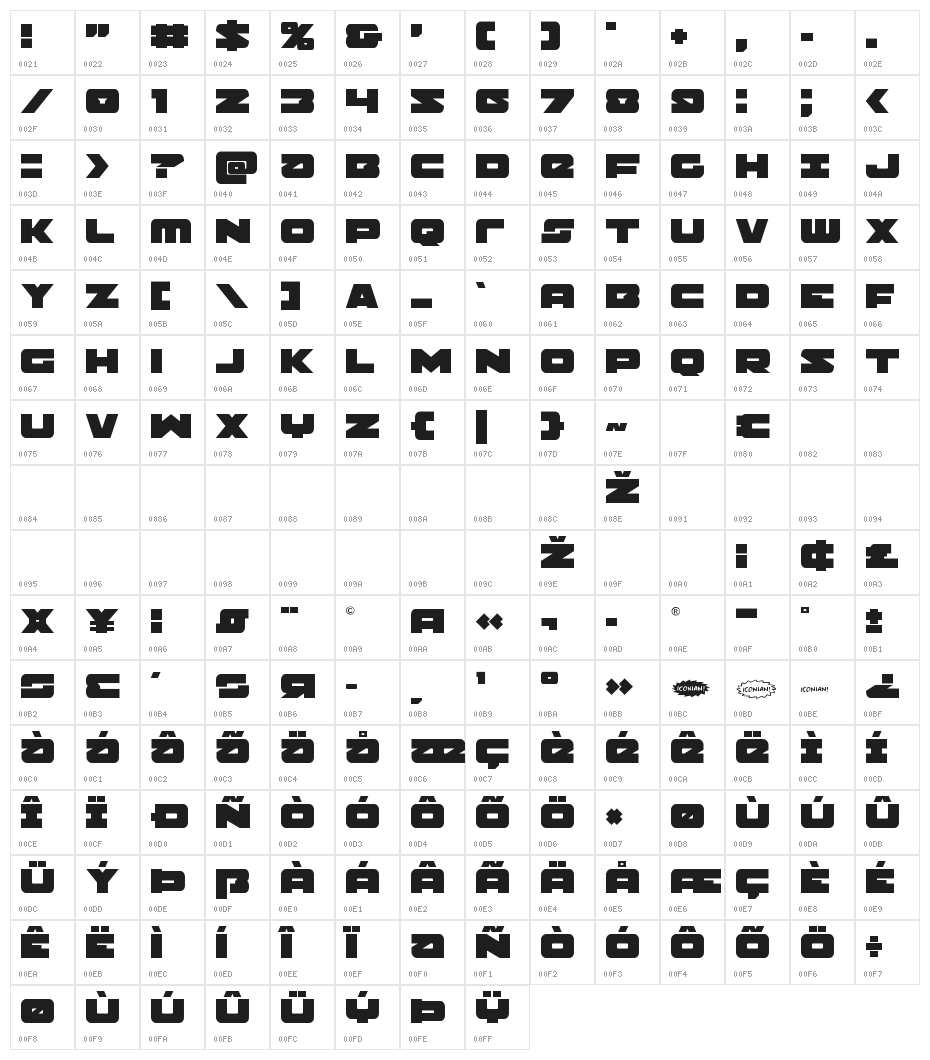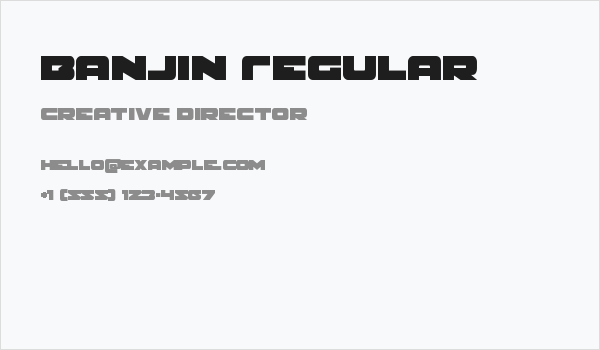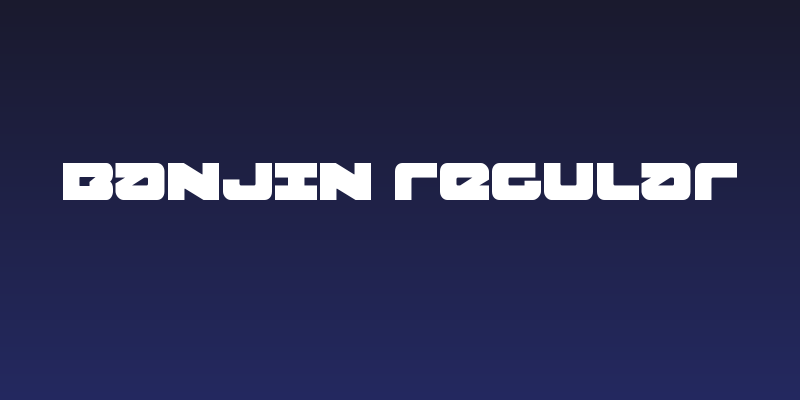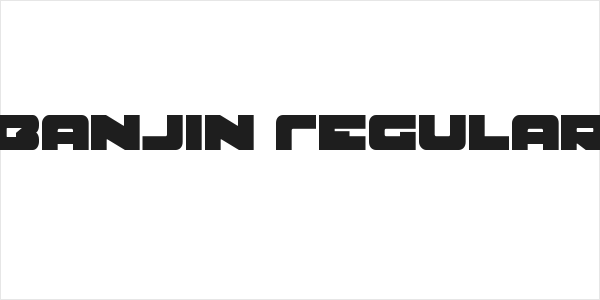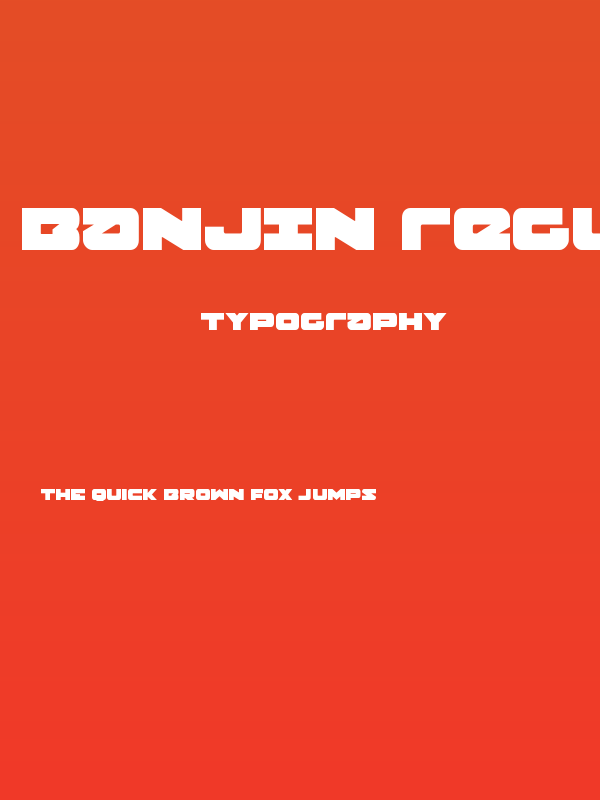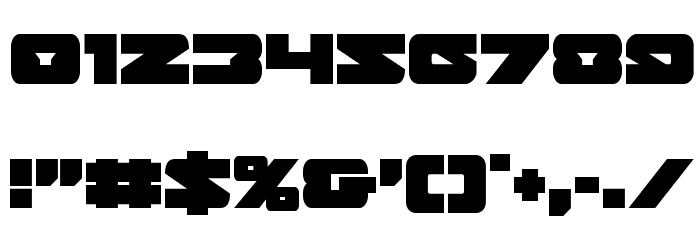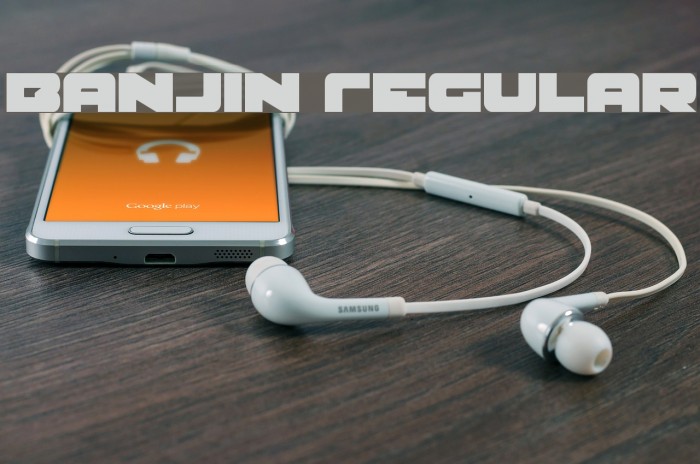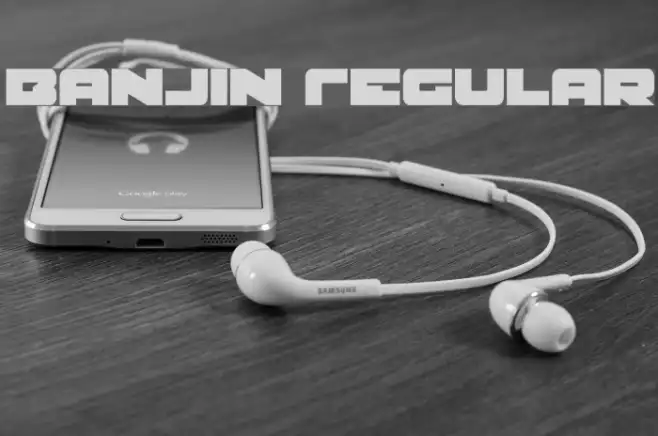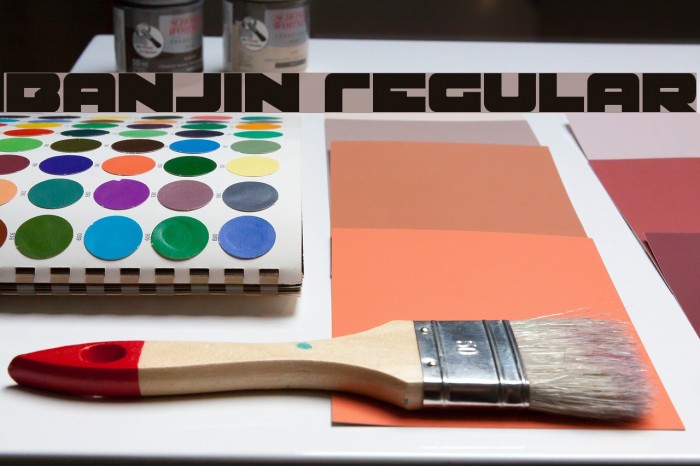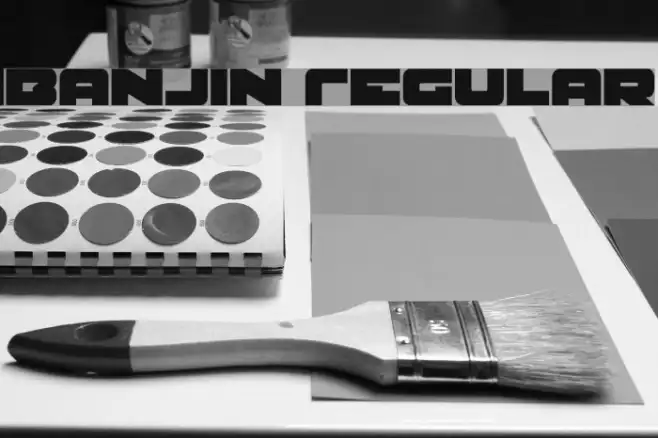
Banjin Regular Font
Banjin Regular Description
This font features a bold, geometric design with a strong presence. Its blocky, angular shapes give it a futuristic and industrial feel, making it stand out in any design. The uppercase letters are particularly striking, with their thick lines and sharp angles. The numbers and special characters maintain the same bold aesthetic, ensuring consistency across all elements. This font is perfect for projects that require a modern and impactful look, such as posters, logos, and headlines.
| Proposed Projects | Ideal for posters, logos, headlines, and any design needing a modern, impactful look. |